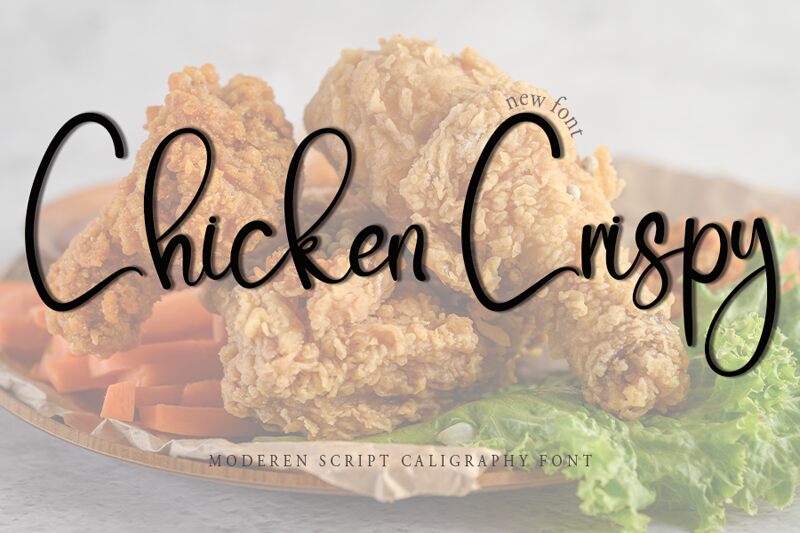
Chicken Crispy
Chicken Crispy, crafted by Etik Fatimah, evokes the charm of personal touch with its handwritten style. Its gentle strokes convey a light and airy feel, reminiscent of a delicate brush dance across a canvas. The playful yet elegant curves offer a visual rhythm that exudes warmth and approachability.
Ideal for design projects that require an intimate and artisanal aesthetic, Chicken Crispy shines in contexts like invitations, greeting cards, and boutique branding. It's particularly well-suited for applications where a touch of whimsy is welcome without sacrificing sophistication.